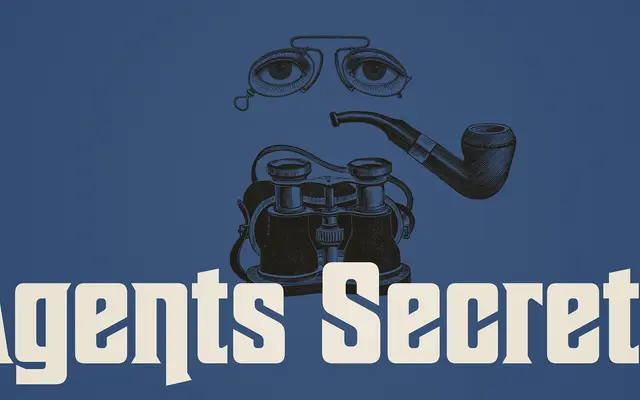
Sheepman specimen from Dharma Type
A wood type display family derived from William Page's No.506, with rounded edges softening the original's hard polygonal construction.
Sheepman takes William Page's 19th-century No.506 as its starting point and trades angular polygonal forms for rounded edges, lending the letterforms a gentler character than their historical source. Three weights are included, each with a matching slanted style, and OpenType Stylistic Alternates and Swash features provide alternate glyphs for a selection of upper and lowercase characters. Best suited to poster headlines, titles and branding projects where a warm, vintage-inflected display face is needed.
Directly inspired by William Page's 19th-century wood type No.506, Sheepman belongs to the display category with a wood type subcategory, distinguished by its rounded softening of the original polygonal letterforms.